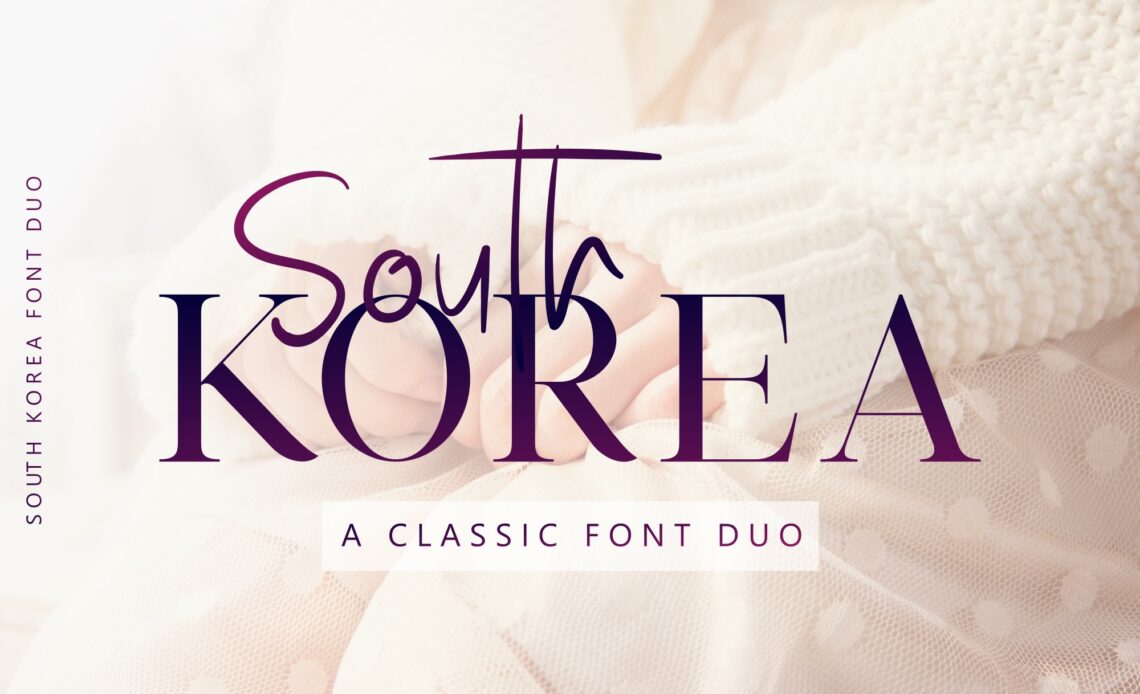
Journey to the Heart of Modern Sophistication with South Korea Font Duo: Where Elegance Meets Charm
In a world of fleeting trends, the South Korea Font Duo emerges as a timeless masterpiece, a harmonious blend of classic serif and handwritten sans serif fonts that captivates the eye and stirs the soul. This remarkable font set, crafted with meticulous precision by Graphicfresh, transcends the boundaries of ordinary typography, inviting you to embark on a creative odyssey where elegance and charm intertwine.
With its unwavering commitment to excellence, the South Korea Font Duo stands tall as a beacon of versatility, effortlessly adapting to a myriad of projects, from alluring branding designs to captivating social media posts, from heartfelt wedding invitations to thought-provoking book covers. Its captivating presence casts a spell on the digital landscape, leaving an indelible mark on all who encounter its allure.
Unleash the Power of Visual Harmony:
The South Korea Font Duo, a symphony of visual harmony, effortlessly orchestrates a captivating dance between classic serif and handwritten sans serif fonts, creating a mesmerizing interplay that elevates your designs to new heights. Experience the seamless fusion of tradition and modernity as each letterform gracefully complements the other, inviting your audience on an immersive journey through the realms of typographic artistry.
Embrace the Essence of Timeless Beauty:
With the South Korea Font Duo as your creative companion, time becomes an irrelevant concept. Its timeless design transcends fleeting trends, ensuring that your creations remain captivating and relevant for years to come. Bask in the glory of a font set that gracefully withstands the test of time, preserving the integrity of your vision while captivating your audience with its enduring beauty.
Ignite the Spark of Creativity:
The South Korea Font Duo is more than just a collection of letters; it's an ignition switch for your creativity, a catalyst that sparks a fiery explosion of ideas. Let the elegant curves and delicate strokes of the serif font inspire you to craft headlines that command attention, while the playful charm of the handwritten sans serif font adds a touch of whimsy to your designs. Embrace the limitless possibilities that await you as you embark on a creative journey with this remarkable font duo.
Dare to Stand Out from the Crowd:
In a sea of conformity, the South Korea Font Duo empowers you to make a bold statement, to rise above the noise and leave an unforgettable impression. Its unique combination of classic and contemporary elements ensures that your designs stand out from the crowd, captivating your audience with their originality and sophistication. Embrace the power of distinction and let the South Korea Font Duo elevate your creative endeavors to unparalleled heights.